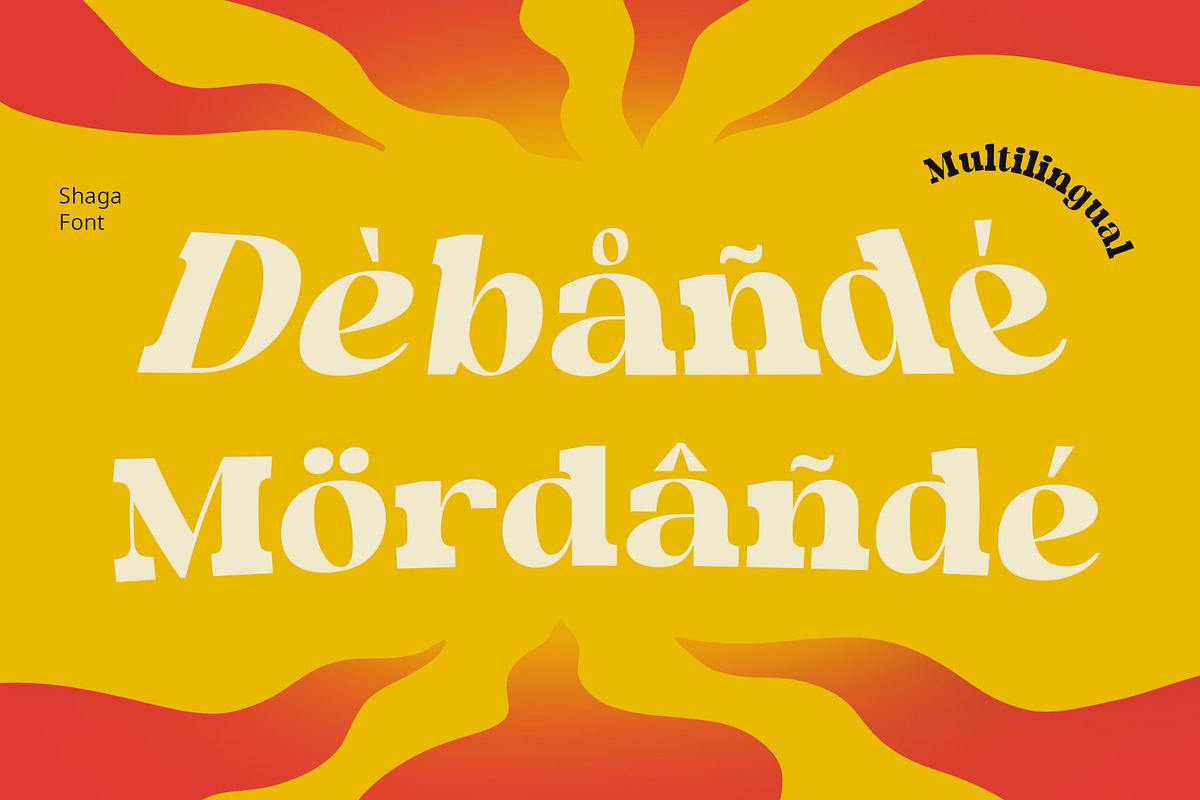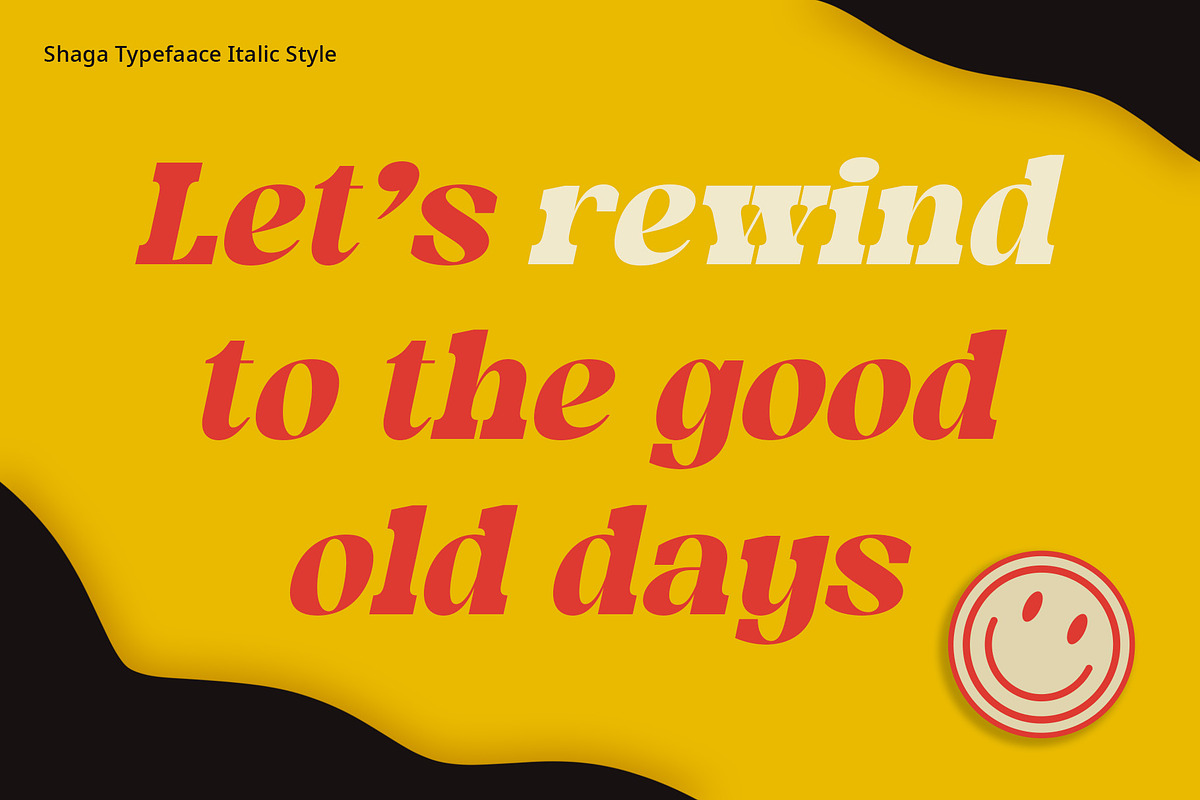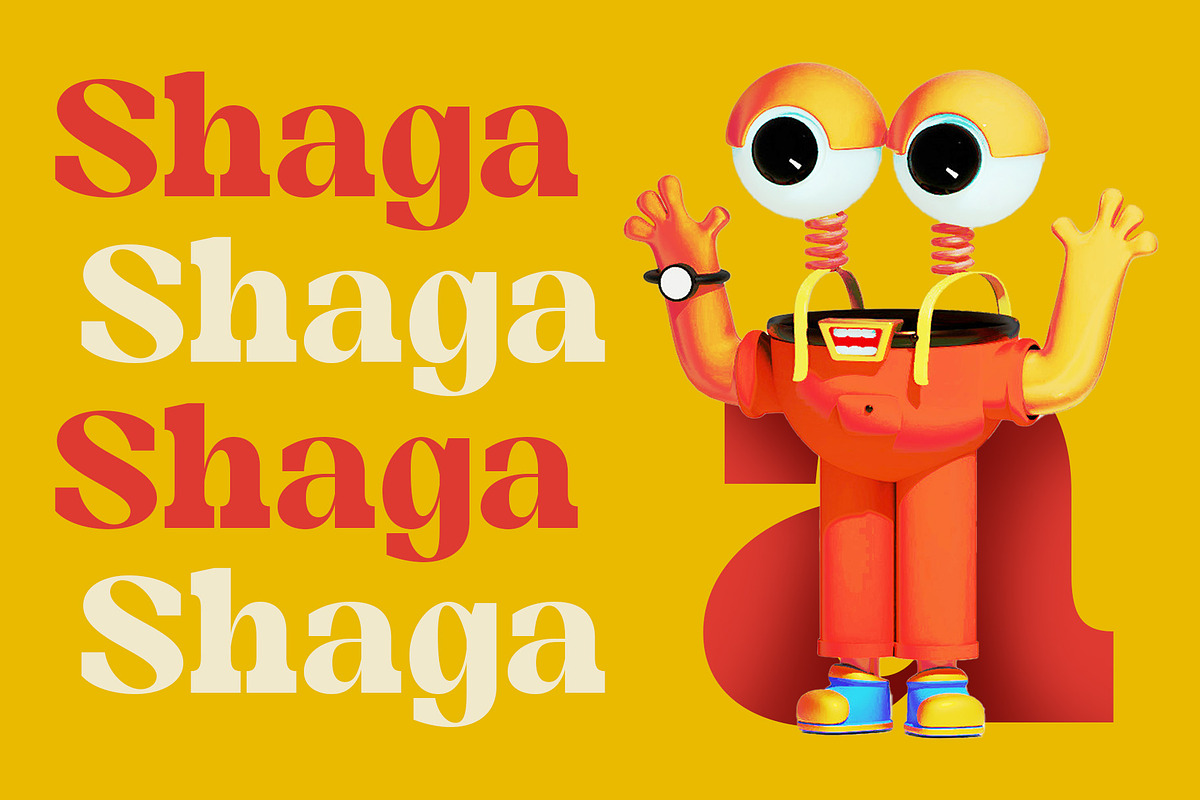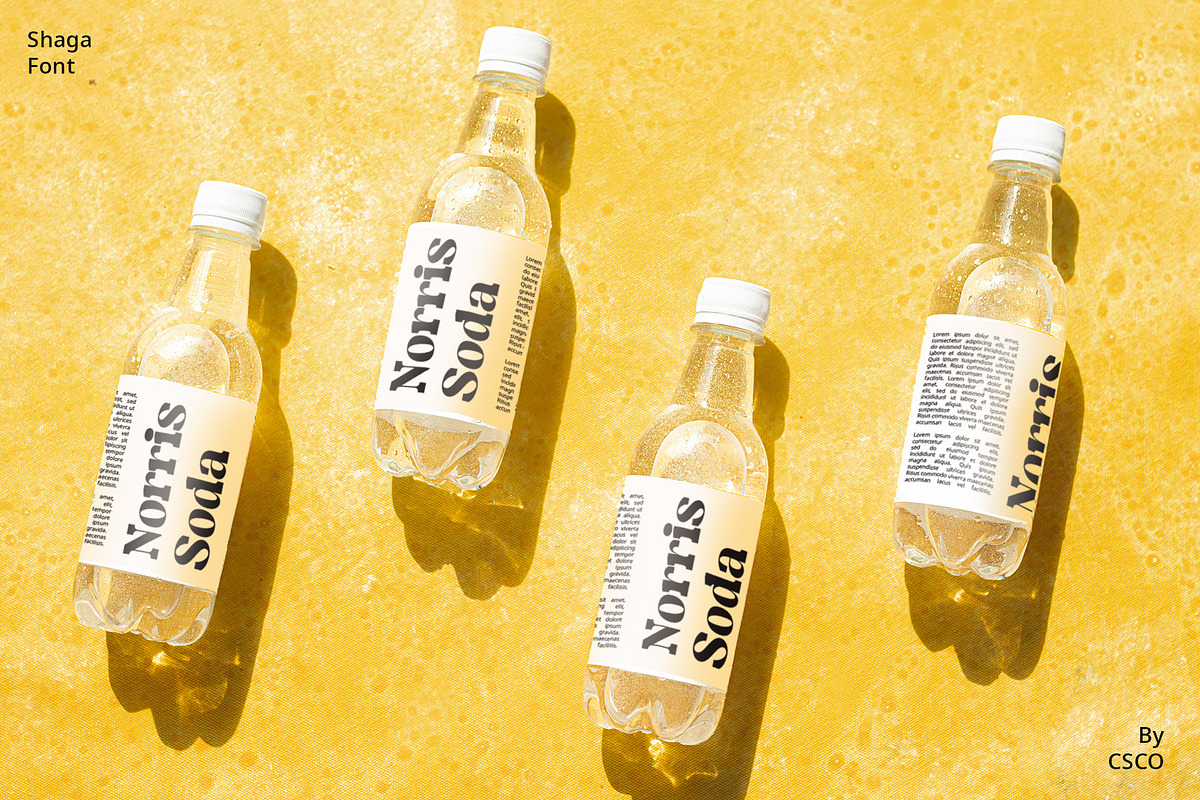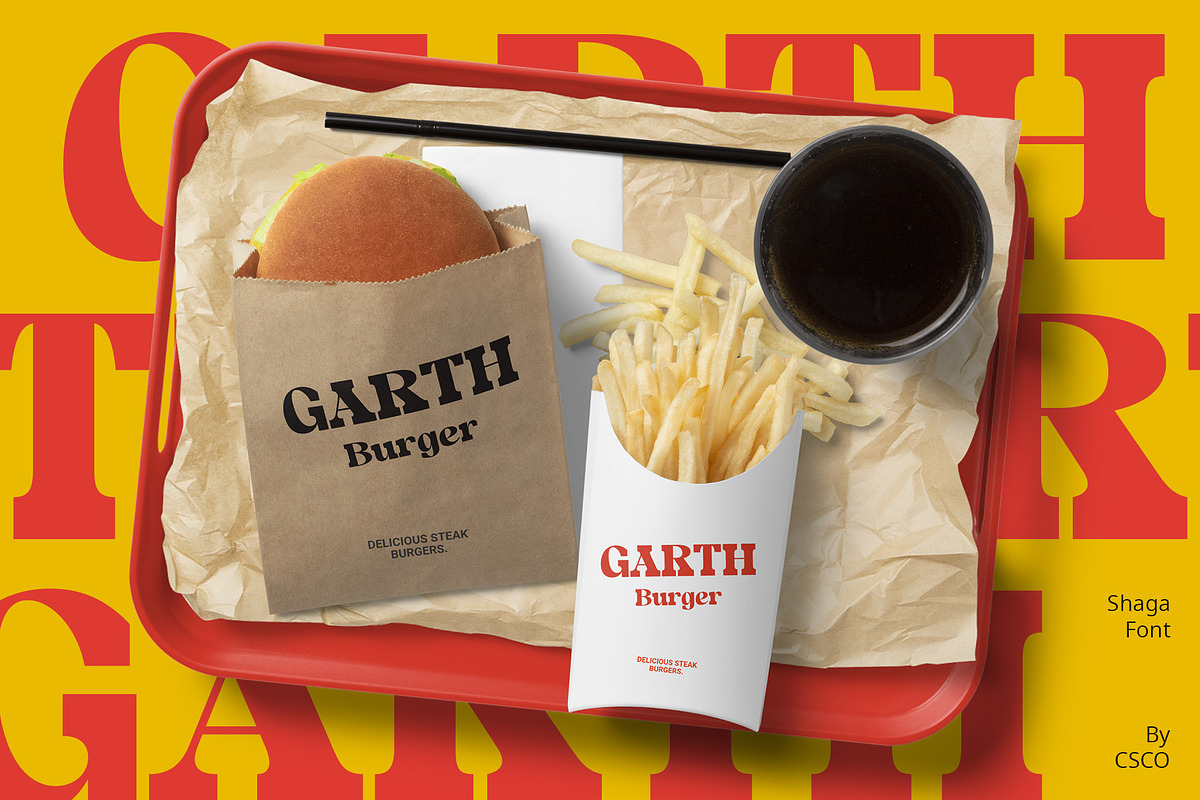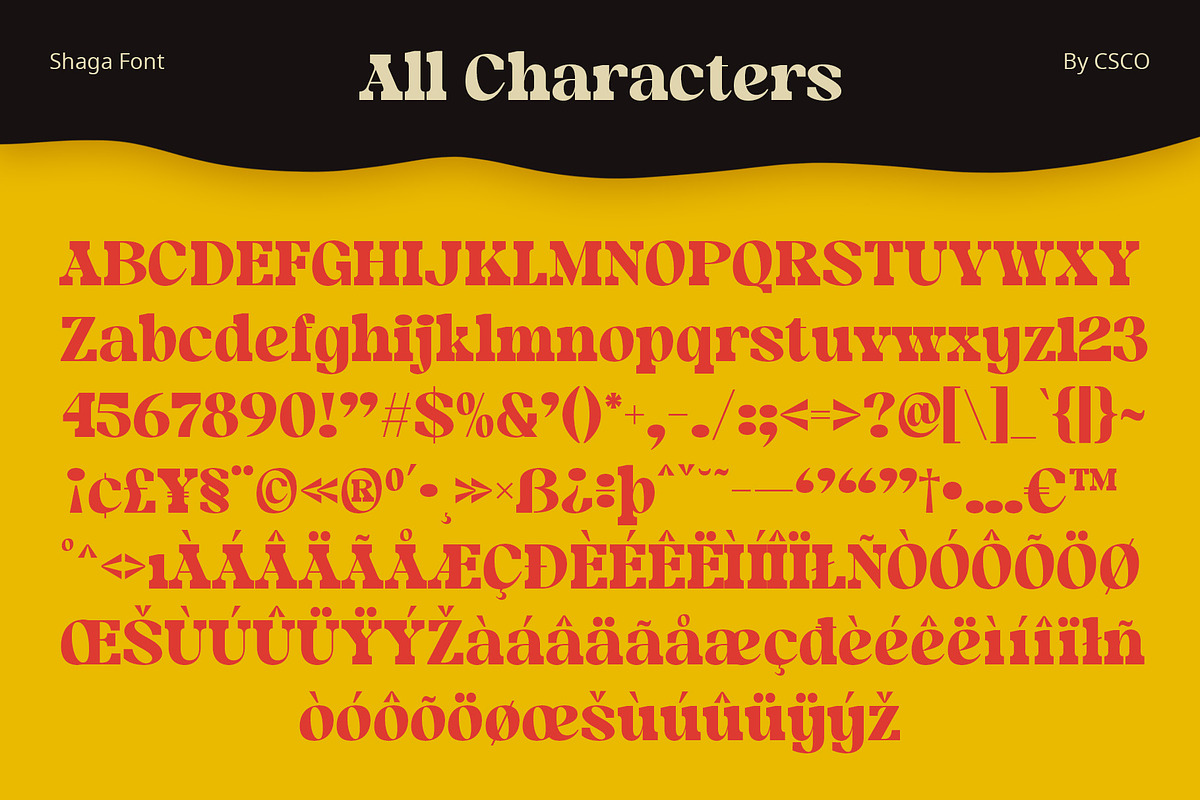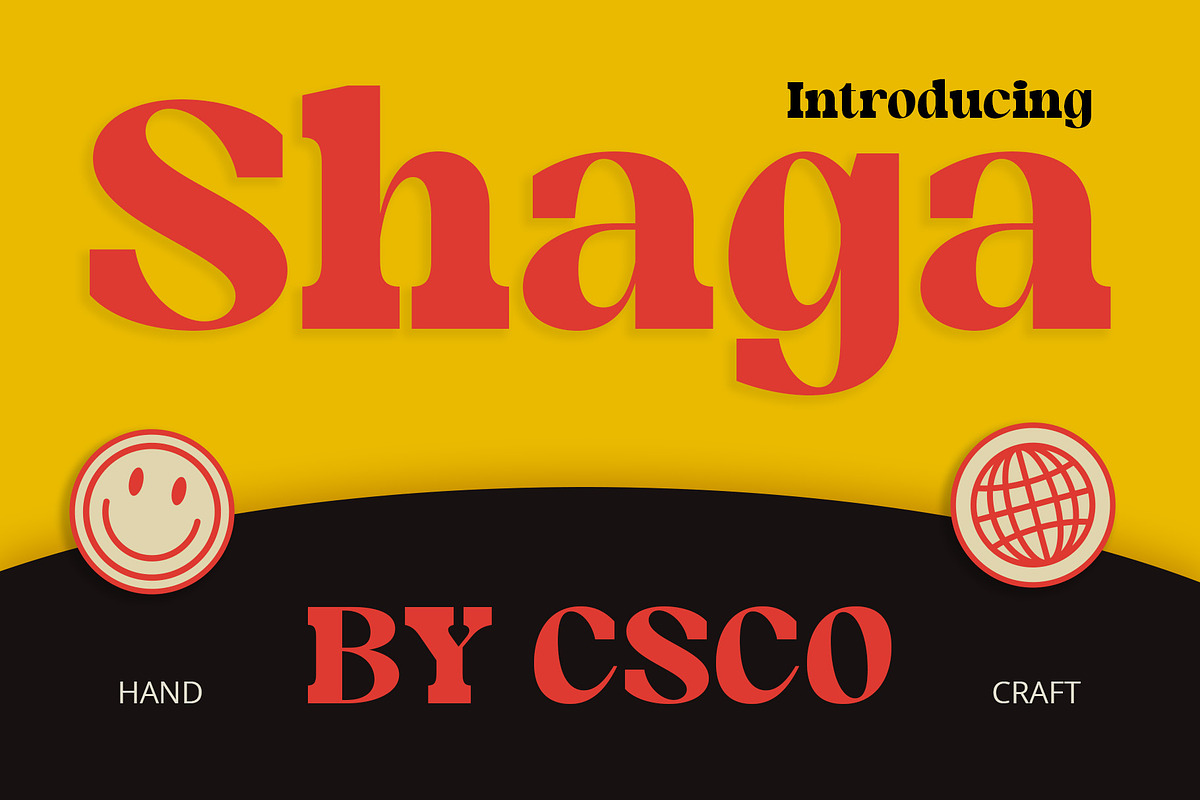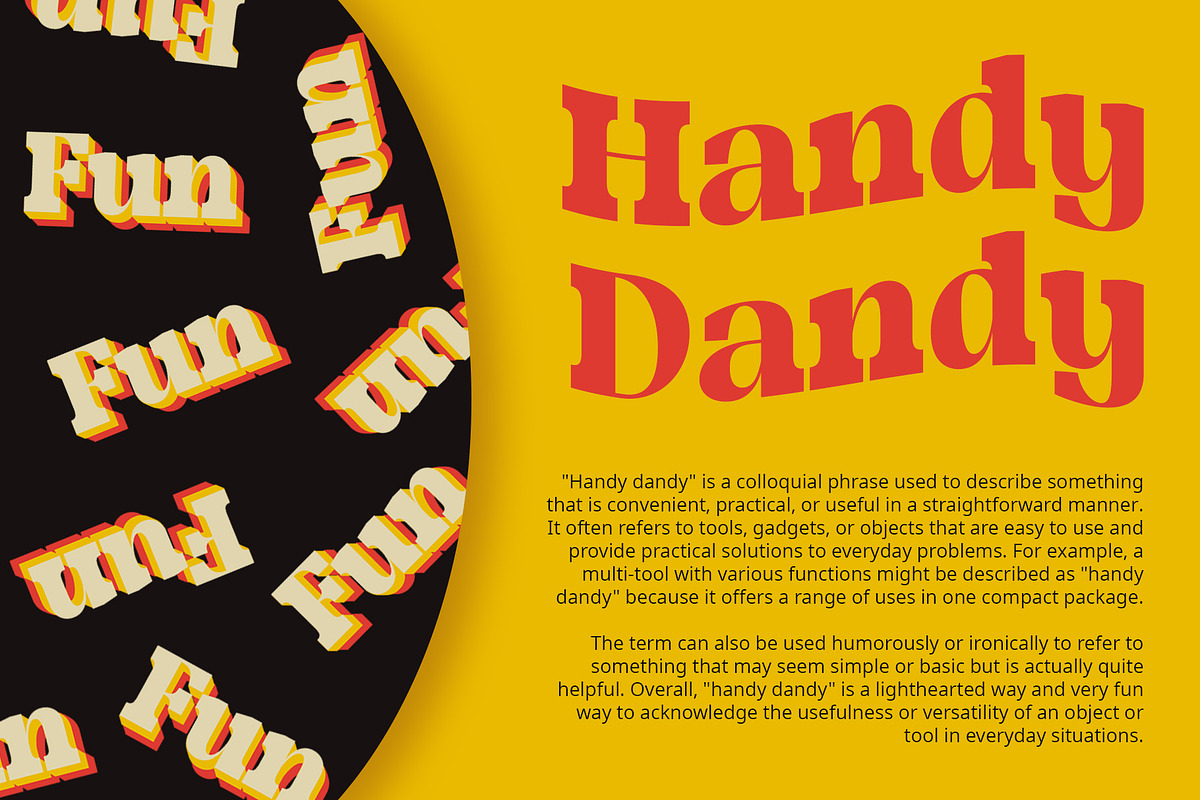
Shaga – Fun Serif
Shaga – Fun Serif: Where Playfulness Meets Professionalism
Playful Charm
Shaga – Fun Serif delights with its whimsical charm, adding a playful touch to any design project.
Shaga – Fun Serif introduces a delightful blend of whimsy and sophistication to your design arsenal. Its playful charm captivates audiences, making every piece of text a joy to behold.
High Contrast Appeal
With its high contrast letterforms, Shaga demands attention and adds dynamism to your visual compositions.
Embrace the high contrast appeal of This Fun Serif as it adds depth and visual interest to your projects. Each letterform pops with vitality, ensuring your message stands out in a sea of content.
Versatile Functionality
Ideal for both weather displays and corporate branding, Shaga adapts effortlessly to diverse design needs.
Experience the versatility of This Fun Serif as it effortlessly transitions between playful weather displays and corporate branding materials. Its adaptability makes it a valuable asset for designers seeking flexibility in their typographic choices.
Seamless Integration
Whether for playful branding or professional documents, Shaga seamlessly integrates into any design environment, enhancing visual appeal.
Seamlessly integrate This Fun Serif into your design workflow and witness how it elevates the visual impact of your creations. Whether you’re crafting a lighthearted advertisement or a formal business report, Shaga adds a touch of flair while maintaining professionalism.